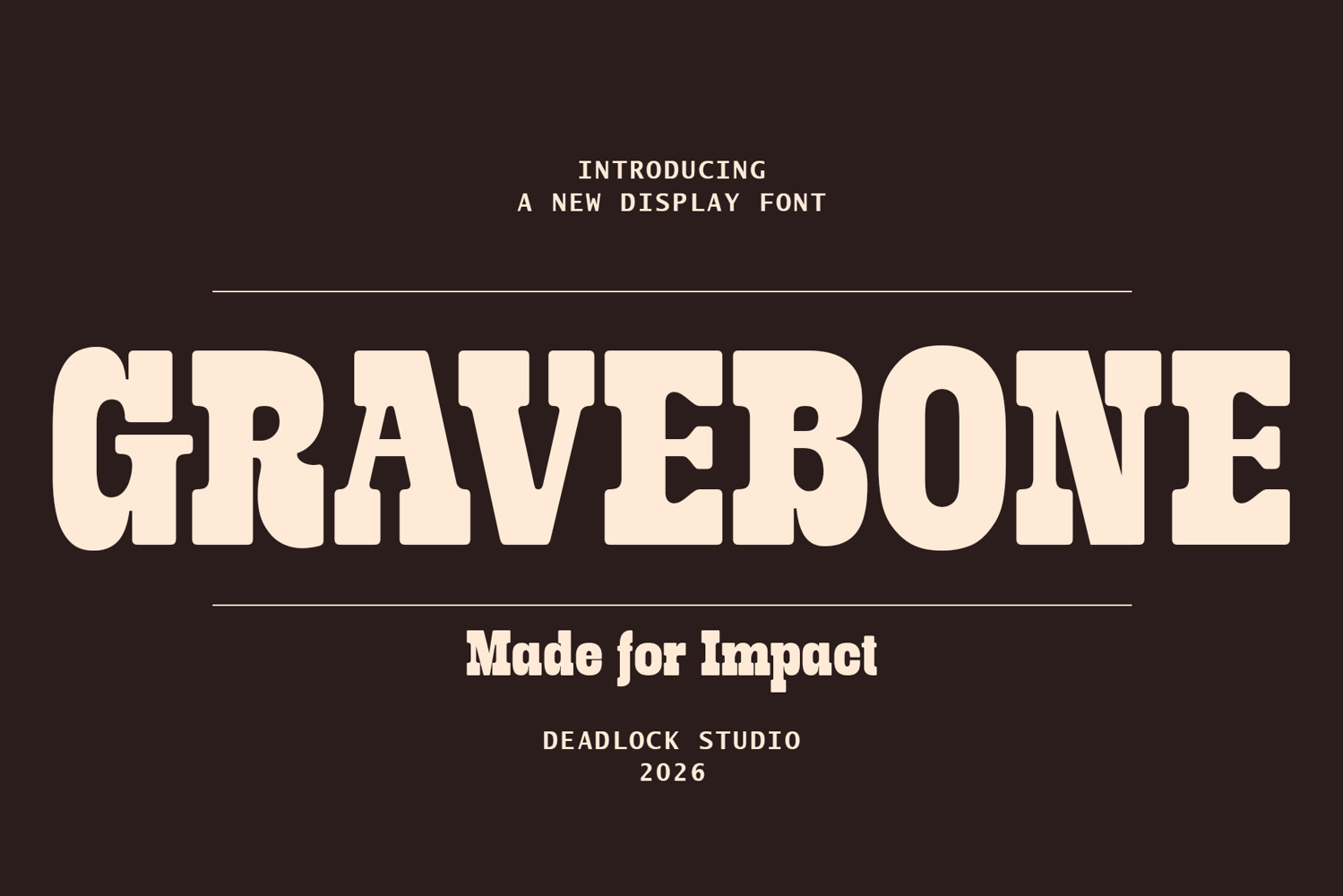
Gravebone is a powerhouse Slab Serif designed for those who need their message to stand like a monument. With its thick, blocky serifs and industrial inspired structure, it strikes the perfect balance between vintage craftsmanship and modern grit.
Whether you're branding a rustic pizzeria, designing a high impact gig poster, or building a bold identity for outdoor gear, Gravebone delivers an unmistakable presence that feels both grounded and rebellious.
Best Used For:
Headlines, Branding, Signage, Menu Designs, Packaging, and Large-Scale Displays.